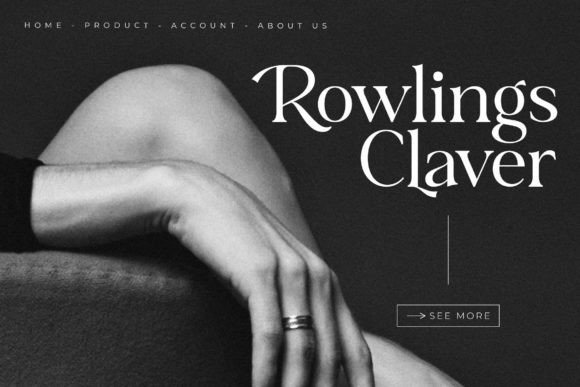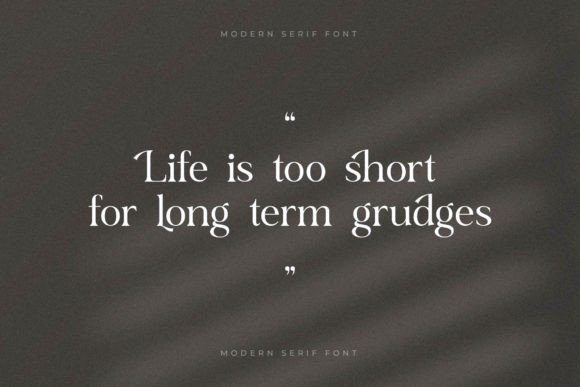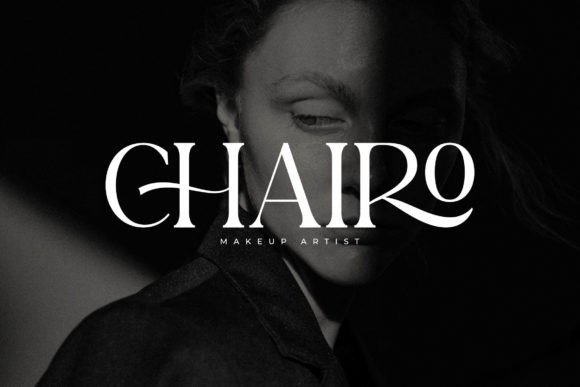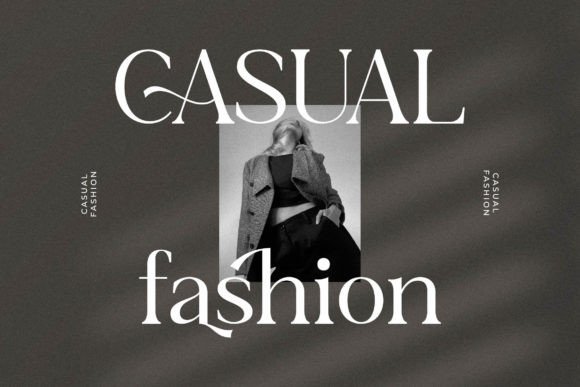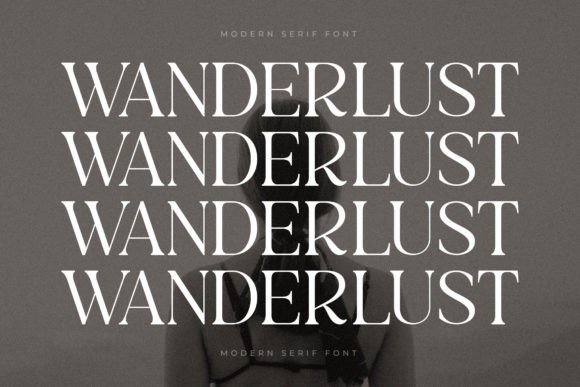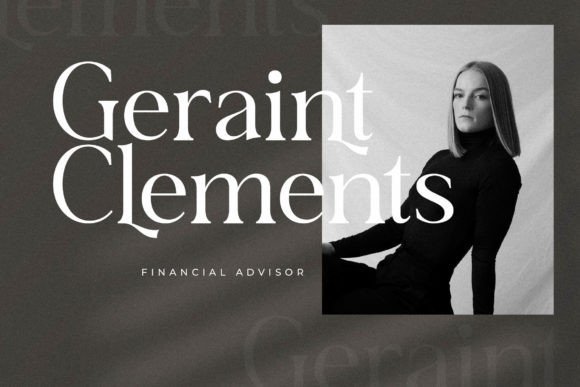
Introduction to Saunde Font
Have you ever stumbled upon a beautifully crafted logo or book title and wondered what makes it so captivating? For designers, finding the perfect font can be the key to unlocking a creative project’s full potential. It’s a moment of pure joy when you discover a font that not only elevates your design but also tells a story.
Enter Saunde Font, a modern and classic serif font that exudes elegance and sophistication. With its unique style and fancy look, this typeface is perfect for creating a luxurious and high-quality design. Whether you’re working on a fashion brand, magazine, or movie title, Saunde Font is an invaluable resource that will help you create a lasting impression.
Key Features of Saunde Font
- High-quality design resource perfect for creative projects, offering a unique and stylish touch.
Honest Review: Saunde Font
As a designer, I’m always on the lookout for high-quality design resources to elevate my creative projects. The Saunde Font has caught my attention, and I’m excited to share my honest review.
- ✨ The Saunde Font has a unique and elegant design that adds a touch of sophistication to any project.
- ✨ The font is highly customizable, allowing me to experiment with different styles and layouts.
- ⚠️ The font may not be suitable for projects that require a more robust and heavy typography.
- ⚠️ Some users may find the font’s intricacies challenging to work with, especially for beginners.
Overall, I’m impressed with the Saunde Font’s potential to enhance my design projects. While it may have some limitations, its unique design and high level of customization make it a valuable resource for designers. If you’re looking for a creative and elegant font, the Saunde Font is definitely worth considering.
For optimal results, use the Saunde Font in conjunction with other high-quality design assets. Common use cases include logo design, typography-based graphics, and branding materials. Experiment with different font sizes and styles to get the most out of this versatile design resource.